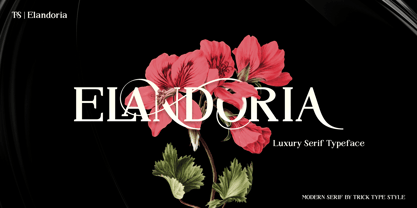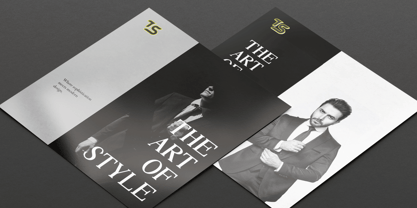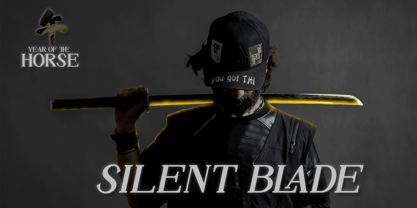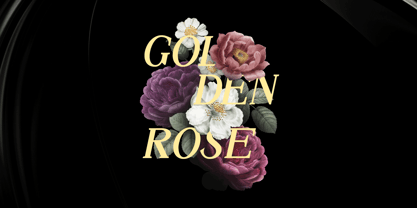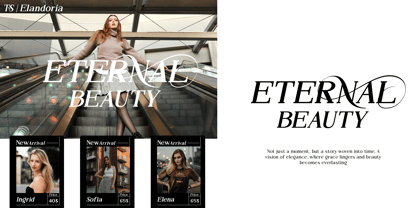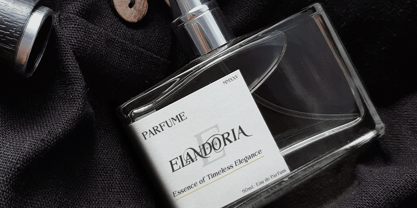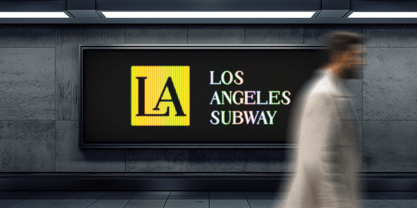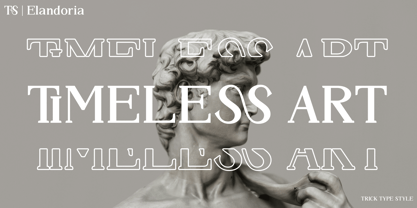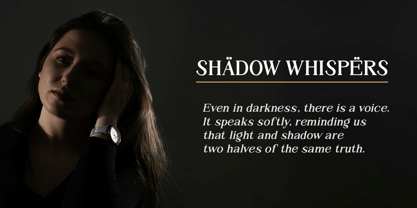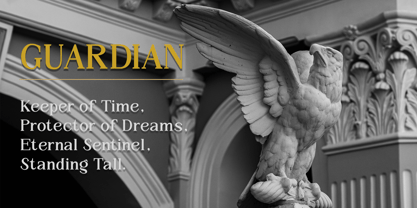
Elandoria
by Trick Type Style
The Elandoria Font Family was designed by Rizki Ramadhan and published by Trick Type Style. Elandoria contains 2 styles and family package options. More about this family
Elandoria – A Modern Luxury Serif Typeface
Discover the timeless beauty of Elandoria, a modern serif font that combines elegance and sophistication in every detail. With its graceful curves, stylish ligatures, and versatile character set, Elandoria is designed to make your projects stand out with a touch of luxury. From fashion branding and editorials to invitations, logos, and packaging, this font delivers both style and professionalism. Let Elandoria elevate your design and create a lasting impression.
Designers: Rizki Ramadhan
Foundry: Trick Type Style